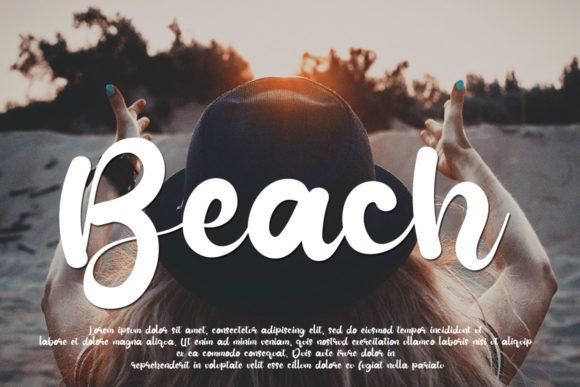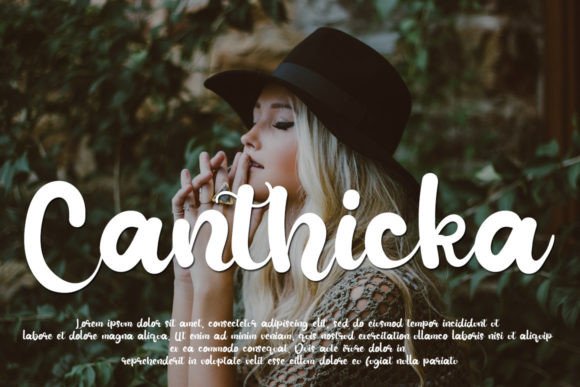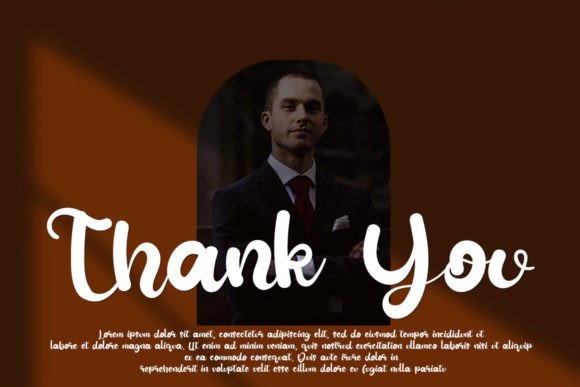
Introduction to Delicious Font
Delicious is a stunning script font.
Key Features of Delicious Font
Why Choose Delicious Font?
Delicious Font offers exceptional quality and versatility, making it a valuable addition to your design toolkit. Whether you’re creating for personal projects or commercial use, Delicious Font delivers professional results.